Expires May 18, 2120 23:59 PST Buy now and get 40% off KEY FEATURES This wonderful fonts bundle has a unique, detailed and handmade look. Whether you want to try a classy look with uppercase letters or a beautiful look with lowercase letters, this font bundle is meant for something completely timeless. Perfect for gorgeous […]
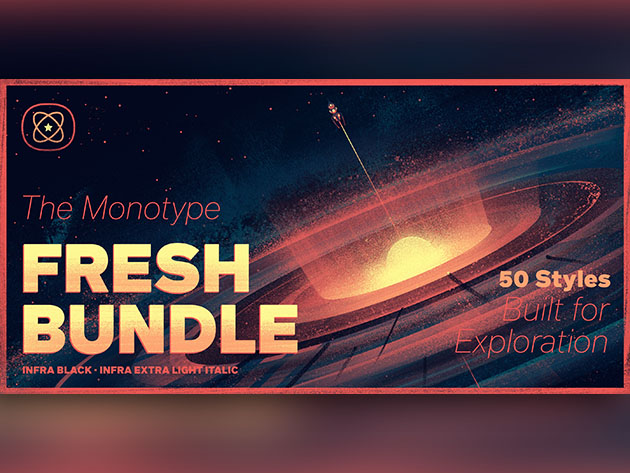
Expires January 21, 2120 23:59 PST Buy now and get 74% off KEY FEATURES Art doesn’t end at images and drawings. How you write your message is important too. It’s time to upgrade your design with this MyFonts Monotype Fresh Font Bundle. MyFonts is a massive fonts library and has over 5 million users in […]
WHAT ARE THE BEST FONTS TO USE FOR A WEBSITE?
When it comes to choosing a font, you want one that greatly reflects your website’s style. Here’s how to choose the best fonts to use for a website.
4 Popular Sans Serif Font Families From Typesketchbook – only $12!
Sick of looking for that specific font that would be just perfect for your latest project? Worry no more because this Mighty Deal from Typesketchbook is made up of 4 popular Sans Serif font families:
- 4 professional Font Families:
Noyh Geometric SlimNoyh - Betm Rounded
Orev Edge
- Over 100 different typefaces in total.
- Multiple weights and styles – regular, italics, bold, thin, etc.
- Endless choices – mix and match to suit your needs.
- Great set for printed projects – magazines, newspapers, editorial, publishing, labels, packaging and more.
Contemporary, Nouvo-inspired Carlson Font Family – only $9!
If your latest project involves some serious branding, you’ll want to pay close attention to this deal! Meet Carlson, a contemporary typeface that draws its inspiration from the Nouvo art concept. This stylish script and sans serif font family features 3 different fonts and loads of OpenType features to give you the true flexibility you’ll need.
- Contemporary design, inspired by Nouvo art concept.
- 3 fonts in 1 – Script, Bold Sans Serif, and Condensed Sans Serif.
- OpenType Features – swashes, stylistic sets, ligatures and more.
- Mix and match fonts and glyphs for your perfect unique style.
- Great choice for printed projects like labels, logos, badges, T-shirts, mugs, totes, prints and any other sort of branding.
Kingsbury Font Family & Design Bundle of Royal Beauty – only $9!
Inspired by the Old English era in Western Europe, WT Kingsbury Gothic exhibits dramatic thin and thick strokes mixed in with the elaborate swirls of the Victorian Age. Mix and match any of the 5 typefaces in this Royal Font Family and toss in any of the gorgeous bonuses from the included design pack to create the perfect project.
- Professional font with a regal feel inspired from
Old English era. - 5 fonts in 1: Serif, Fancy, Stroke, Gothic and Black.
- Gorgeous design pack includes illustrations, badges, frames and floral ornaments.
- Perfect Font Family to use for headlines, posters, prints, logos, T-shirts, awards, certificates, labels, signs and more.